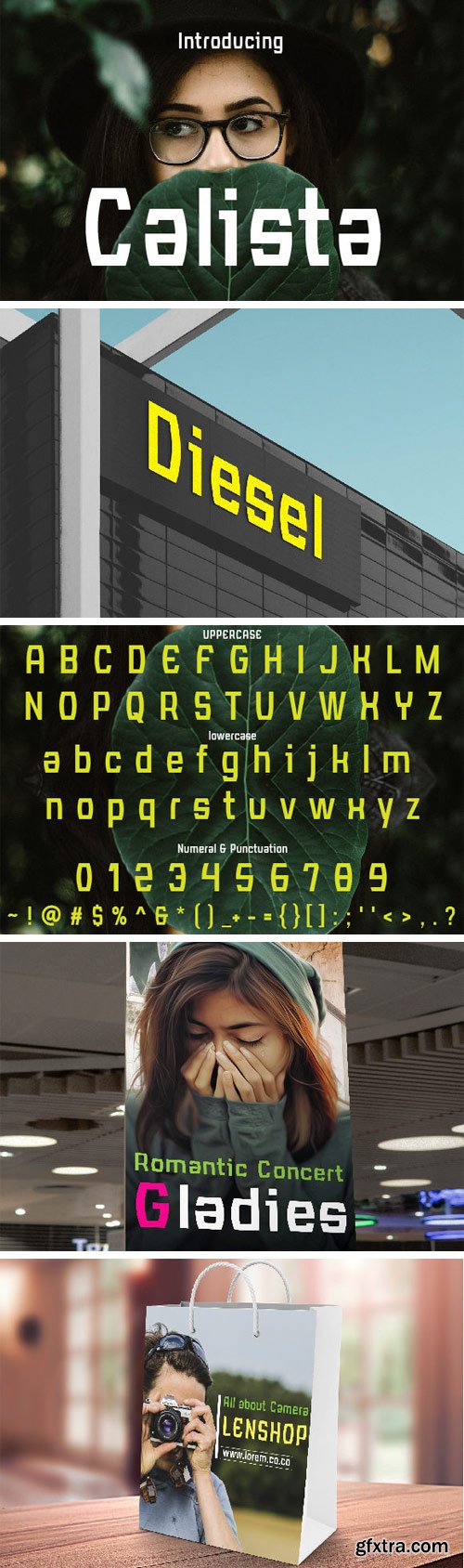
Calista Font
The Calista is a fresh and unique typeface. It has a bold look and will add a striking touch to any design. I’s suitable for various purposes such as covers, magazines, t-shirts, posters, billboards, t-shirts, and much more!